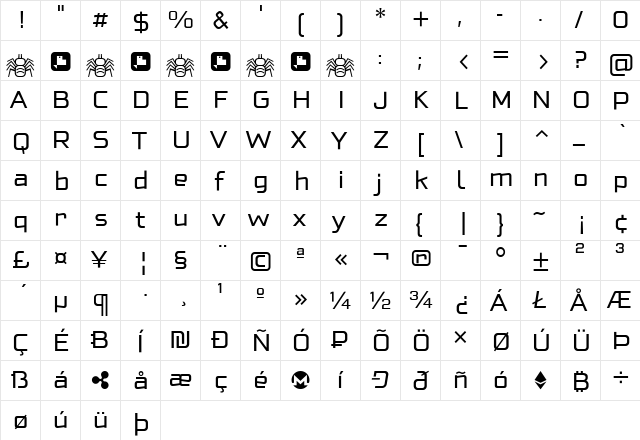
Neo Fobia Regular
| Foundry | deFharo |
| Designer | Fernando Haro |
Design Context for Neo Fobia Typeface
Neo Fobia offers clean, dependable letterforms without strong stylistic allegiance, making it a practical choice for designers who need flexibility.